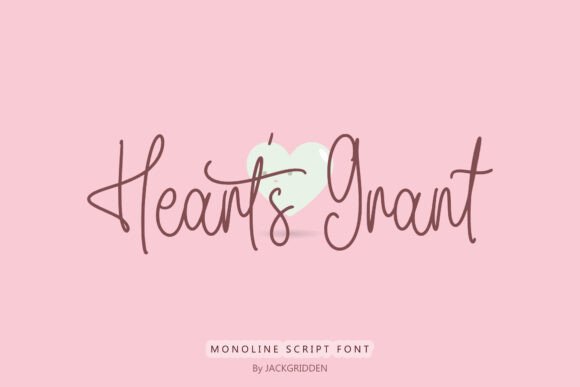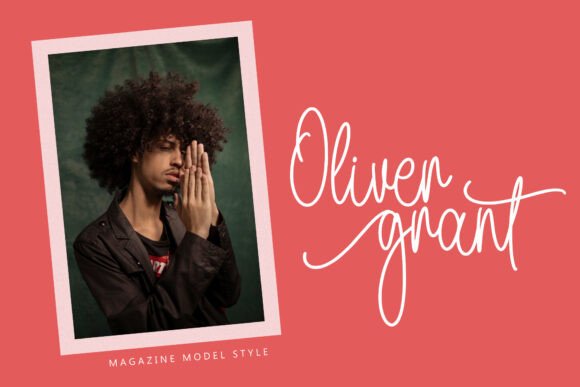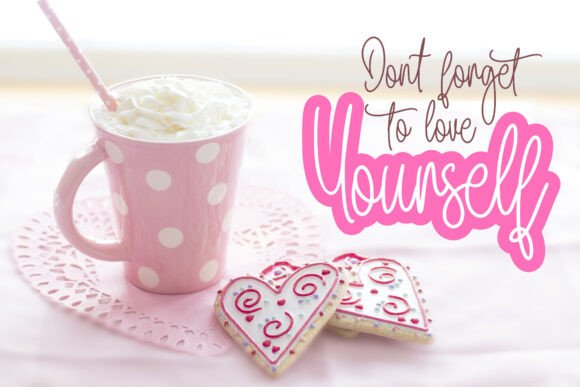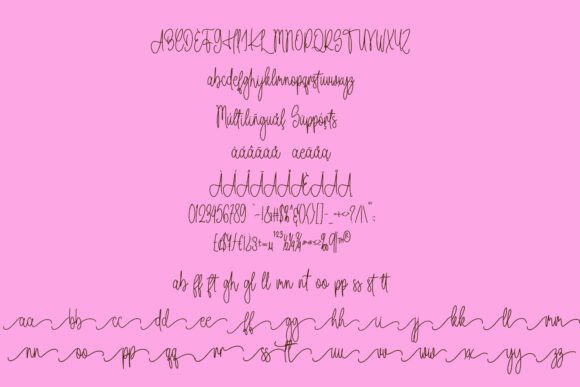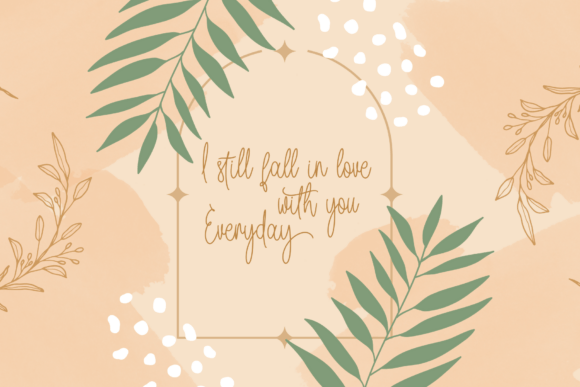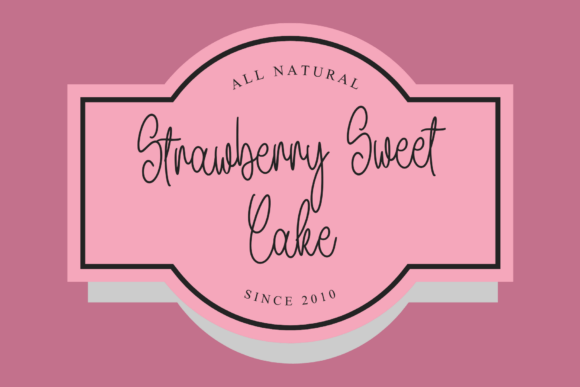
Introduction to Heart’s Grant Font
Remember that moment when you first saw a beautiful wedding invitation, and it took your breath away? The elegant script, the delicate details, and the overall romance that exuded from it? That’s what Heart’s Grant Font is all about – capturing the essence of love and elegance in every design project. This stunning monoline script font is perfect for adding a touch of sophistication and warmth to your creative projects, whether it’s a wedding invitation, greeting card, logo, or branding.
As a designer, you’re always on the lookout for high-quality design resources that can elevate your work. That’s where Heart’s Grant Font comes in – a free download that offers a seamless blend of style and warmth. With its fluid lines and charming ligatures, this font is a must-have for any designer looking to convey heartfelt messages with style. Whether you’re working on a special occasion or a high-profile branding project, Heart’s Grant Font is the ideal choice for designers who value elegance and sophistication.
With its transparent background and versatile design, Heart’s Grant Font is a valuable addition to any design library. Its various ligatures and alternates allow you to create unique and personalized text effortlessly, making it an essential design resource for creative projects of all kinds.
Key Features of Heart’s Grant Font
- High-quality design: Heart’s Grant Font offers a unique blend of elegance and sophistication, making it perfect for creative projects.
- Perfect for creative projects: Heart’s Grant Font is ideal for use in creative projects such as logos, branding, and packaging design.
Honest Review: Heart’s Grant Font
First impressions: the font is absolutely stunning! ✨ The elegant, cursive design is perfect for creating a romantic or vintage vibe in any project. The high quality of the font is evident, with crisp lines and intricate details that make it a joy to work with.
- Unique and elegant design that’s perfect for creative projects
- High quality and crisp lines
However, there are a few limitations to keep in mind: ⚠️ The font may not be suitable for projects that require a transparent background, as the design can be quite dense and may not display well. Additionally, the font may not be compatible with all operating systems or software.
Overall, I’m thoroughly impressed with the Heart’s Grant Font. It’s a great addition to any designer’s toolkit, and I highly recommend it for any creative project that requires a touch of elegance and sophistication.
Heart’s Grant Font is perfect for use in a variety of creative projects, including wedding invitations, branding materials, and design templates. Its high-quality design and transparent background make it easy to use in layered designs, and its elegant touch adds a professional look to any project.